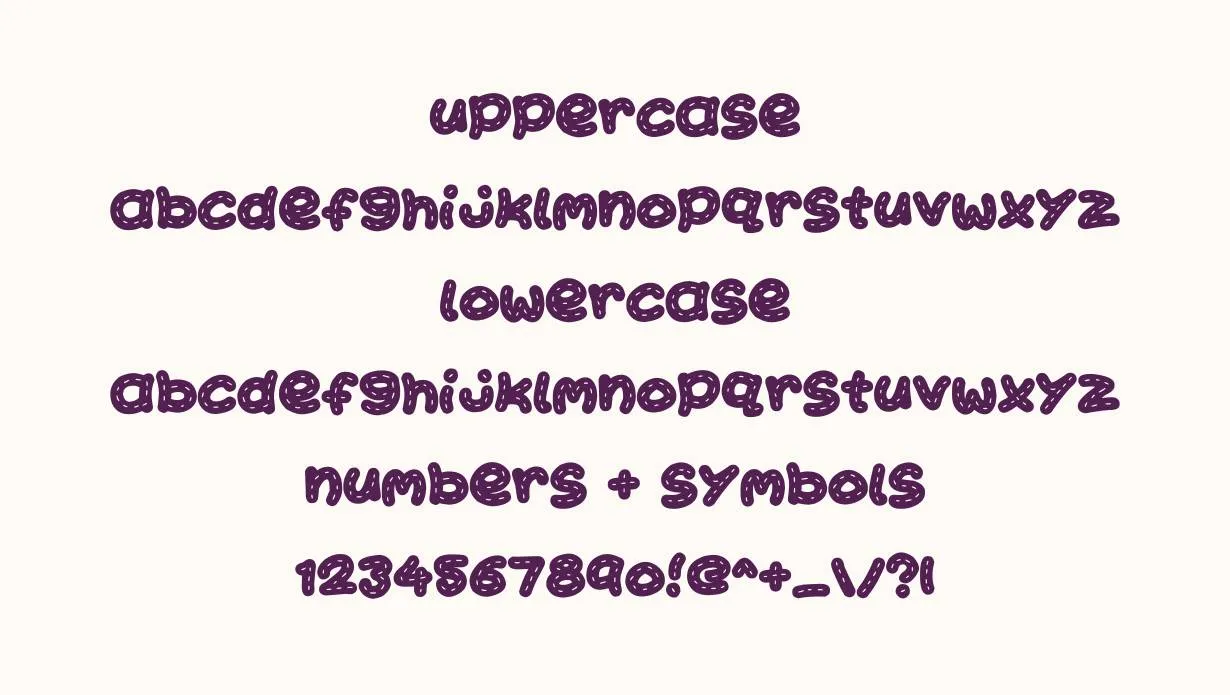
Kawaii Font has a playful and decorative design that’s perfect for designs targeting a younger audience or projects seeking a whimsical and imaginative touch.
This font’s unique style adds an element of fun and creativity to your work. For a design that is distinct and visually striking, consider combining this font with the Crazy Crow Font.